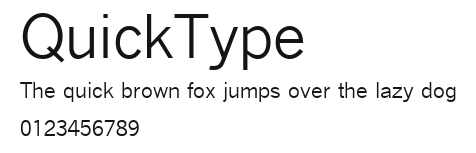
• Font Name: QuickType
• Full Font Name: QuickType
About QuickType.ttf
QuickType.ttf is a modern, elegant sans-serif font designed for ultimate readability and visual harmony. Perfect for branding, headlines, web design, and print materials.